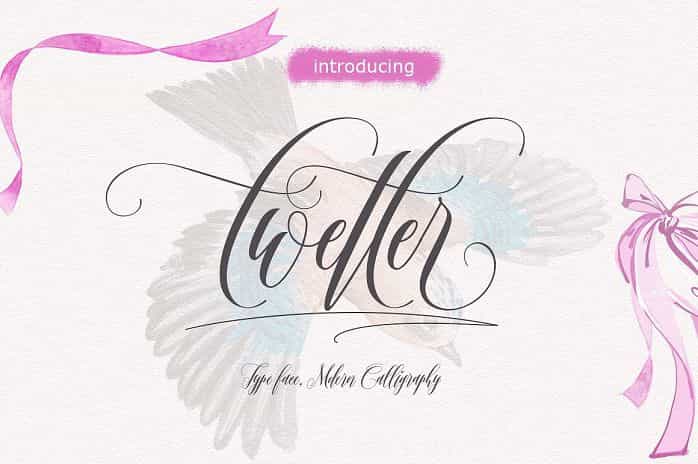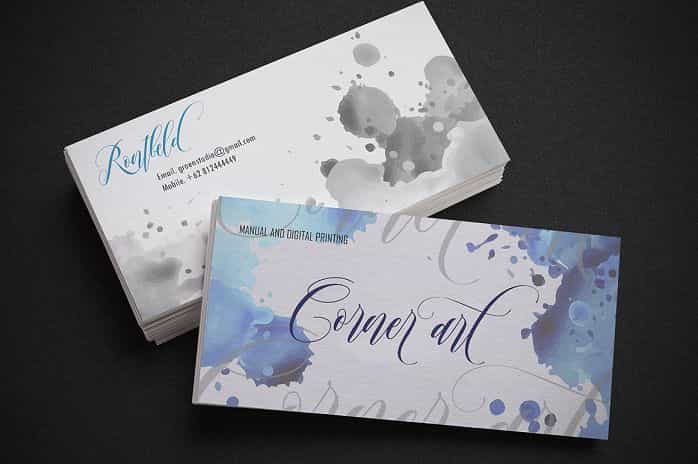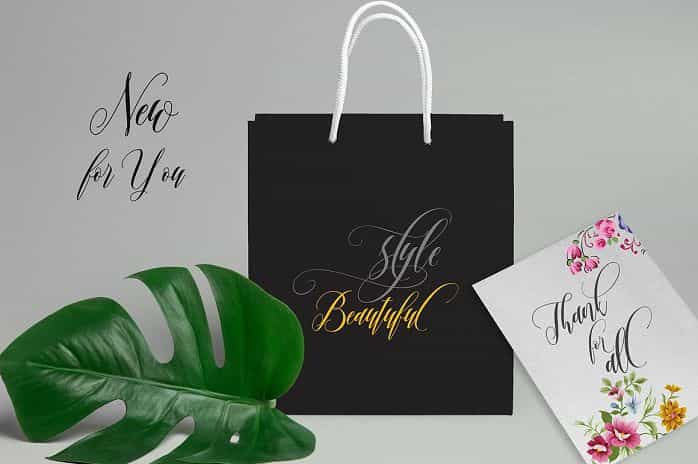
Discover Twetter Script Font, part of the Calligraphy Handwritten collection—a versatile and unique font perfect for adding a personal touch to your projects. Download it for free and enjoy crafting designs with style, from invitations to social media posts. This font is available exclusively for personal use, giving you the freedom to create without limits. Unlock your creativity with Twetter Script Font today!
Introducing Twetter Font. Twetter is a font created by having the character up and down as if it was dancing. Twetter has a highly distinctive calligraphy style, which is very well-suited for the use in modern design work. Can be employed for a number of different things. for example, headings, signature, logos, wedding invitation, t-shirt, letterhead.